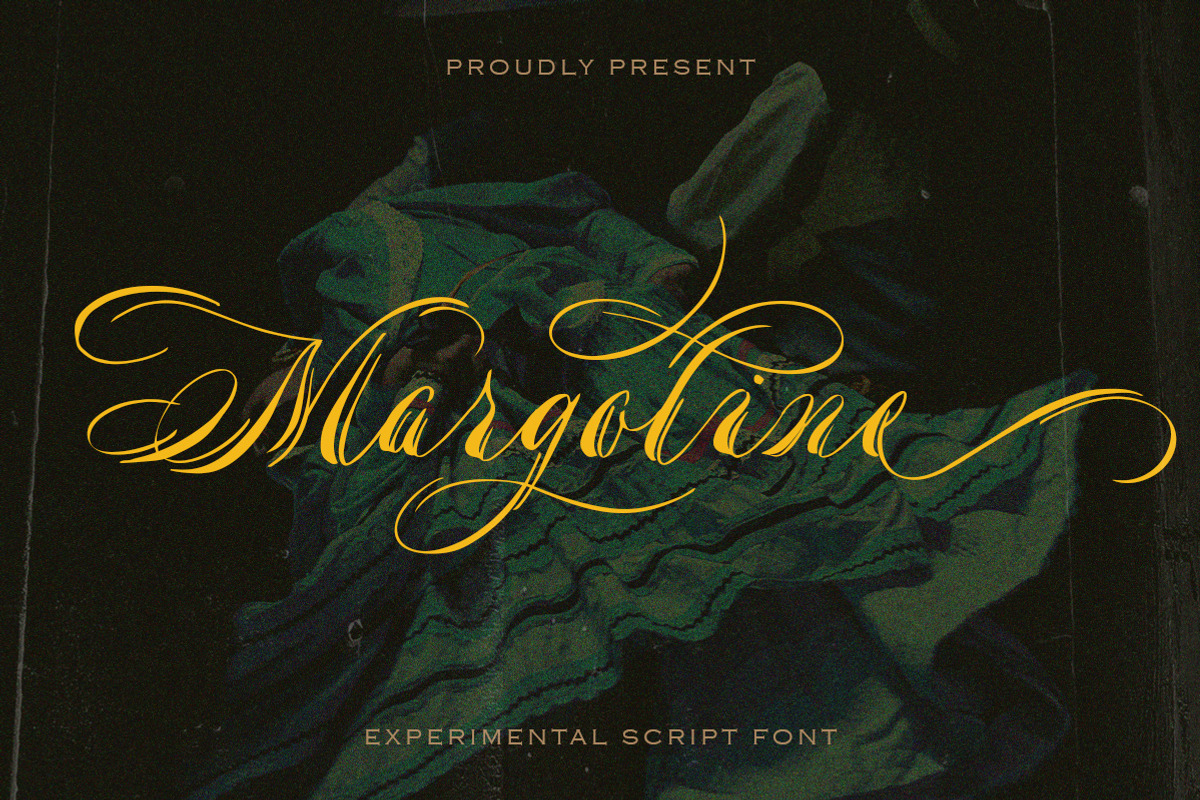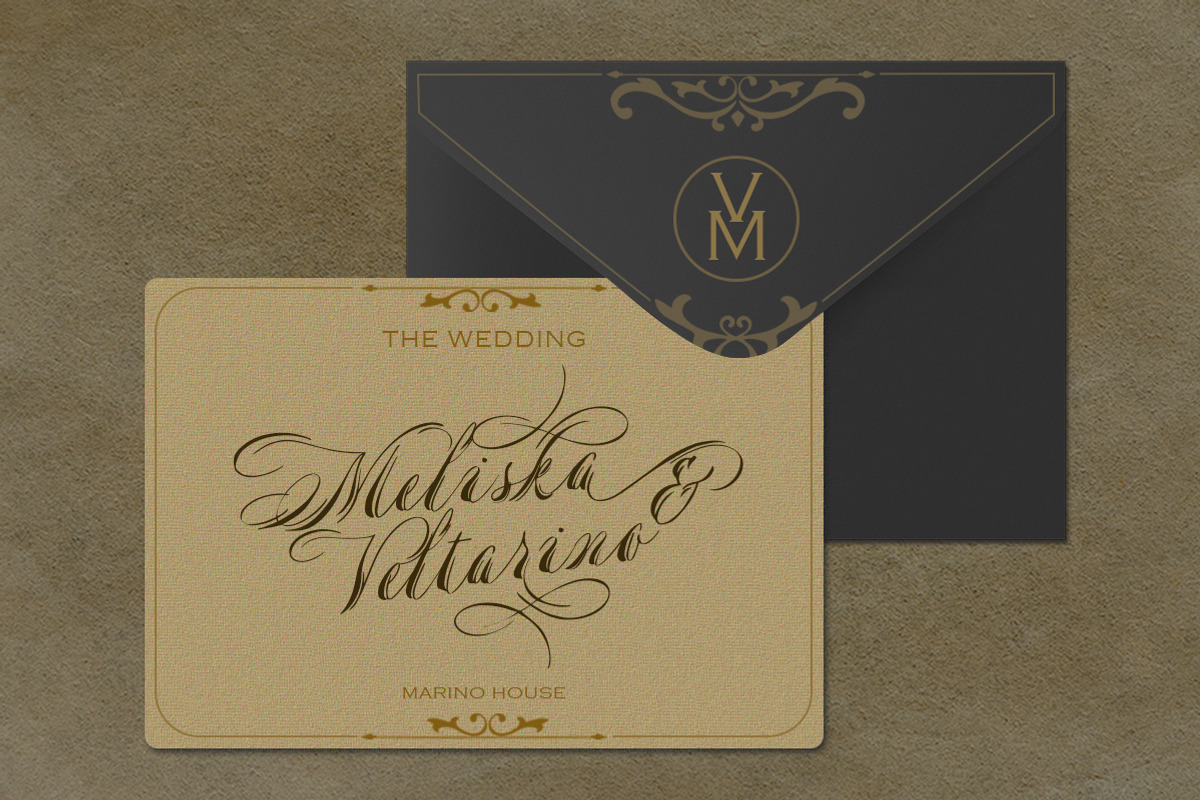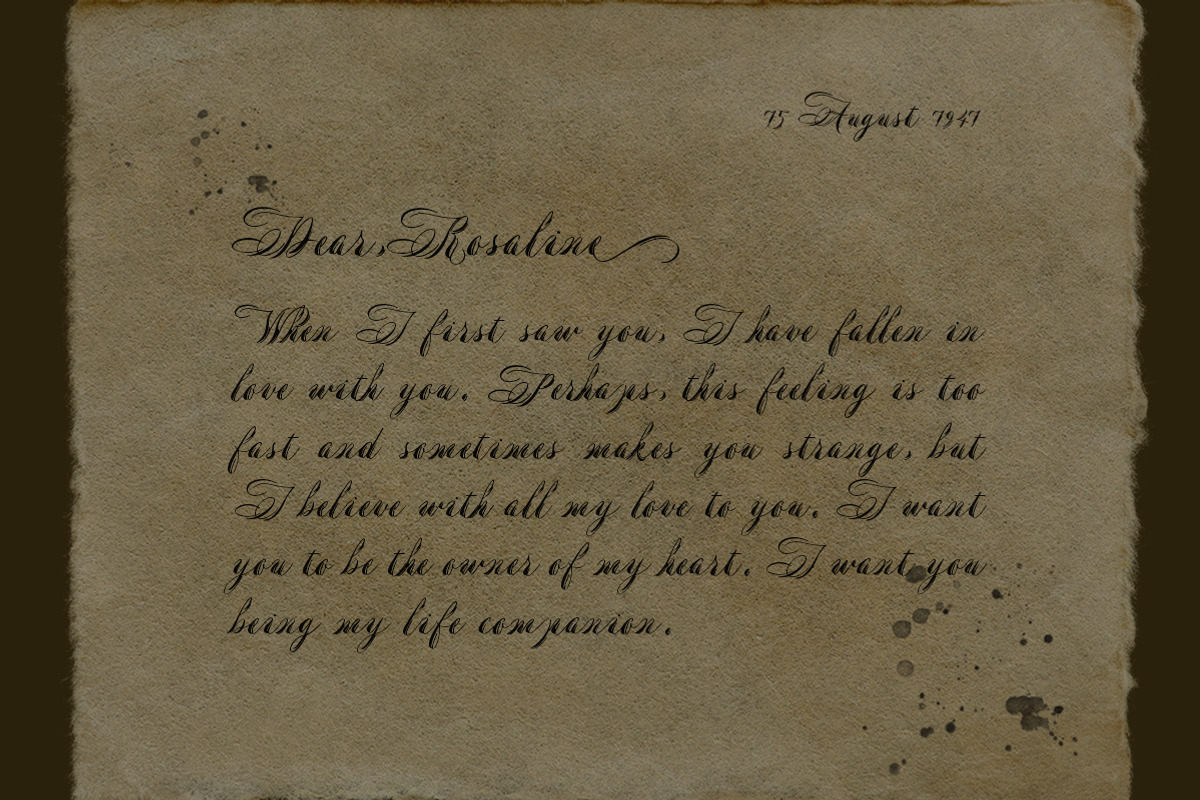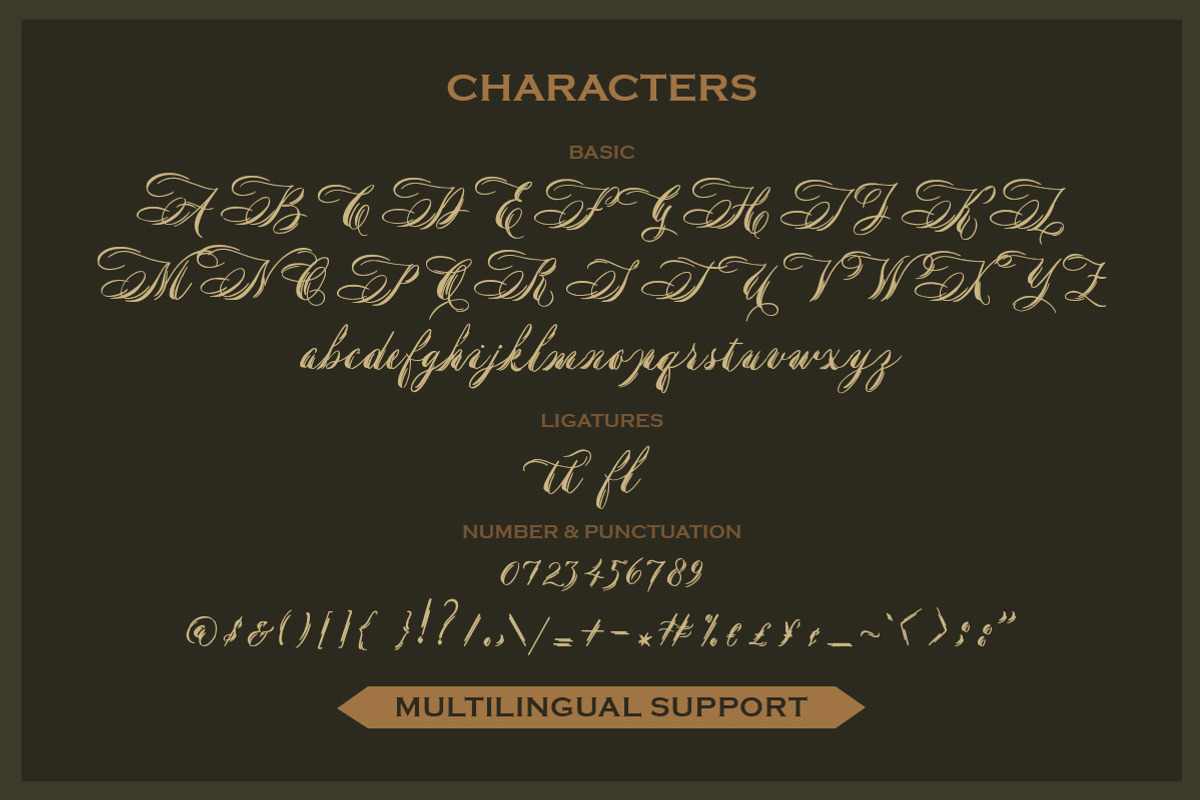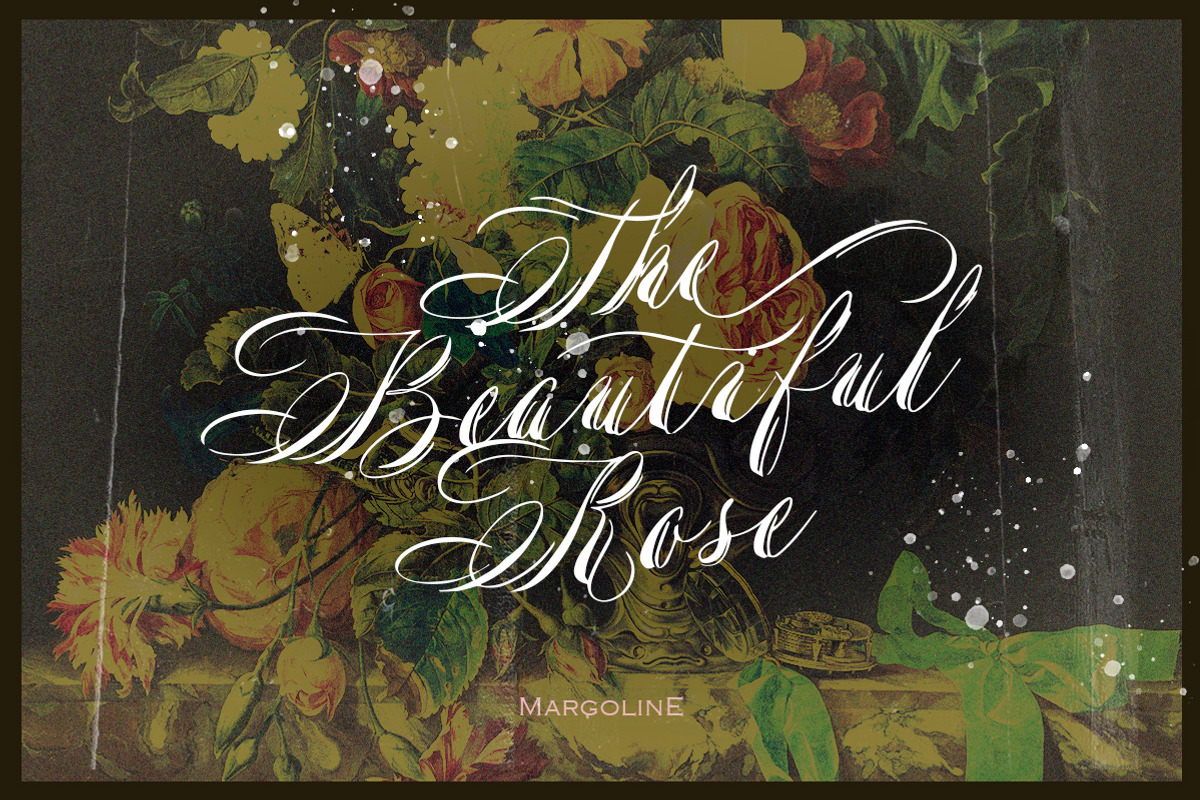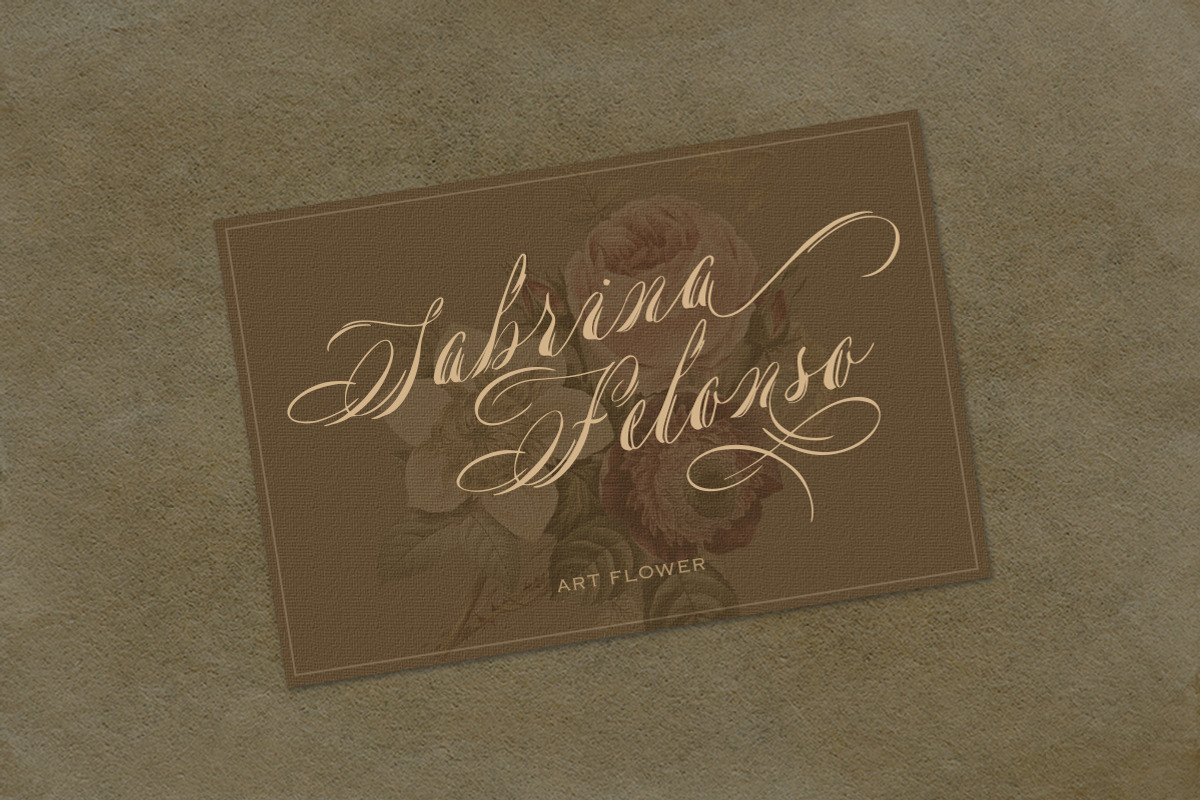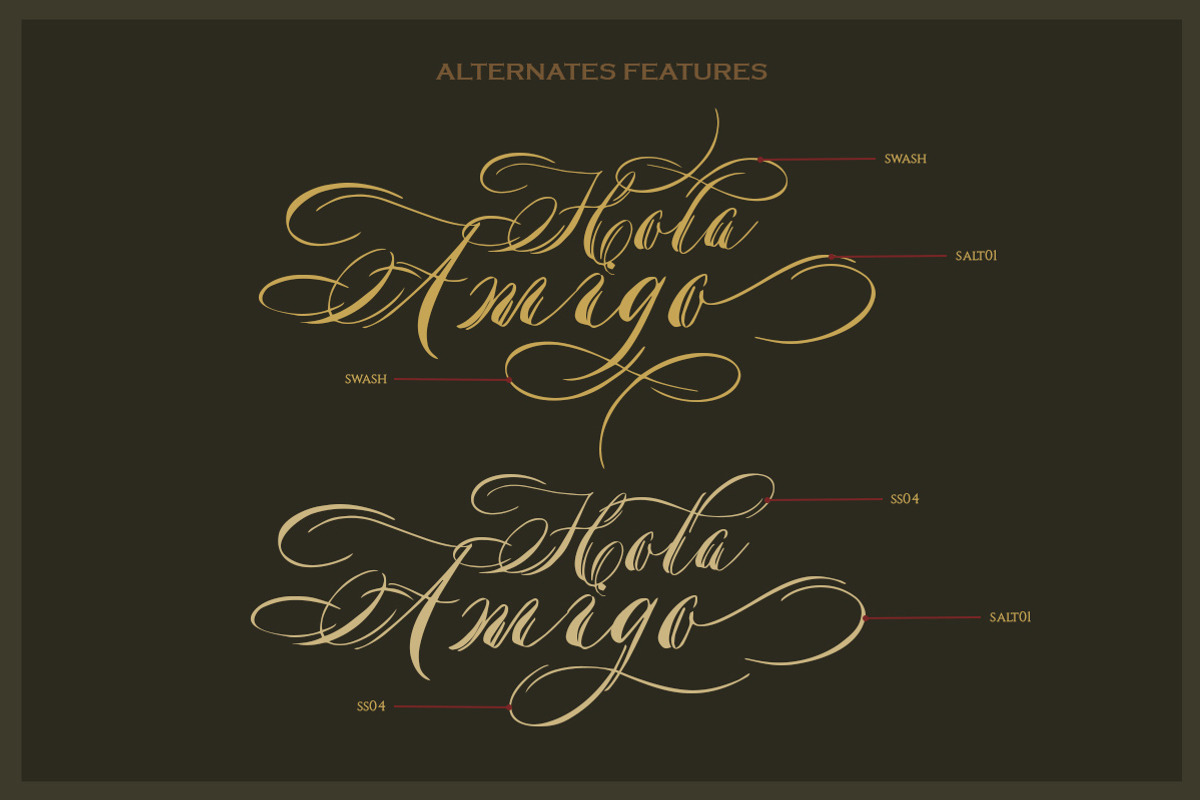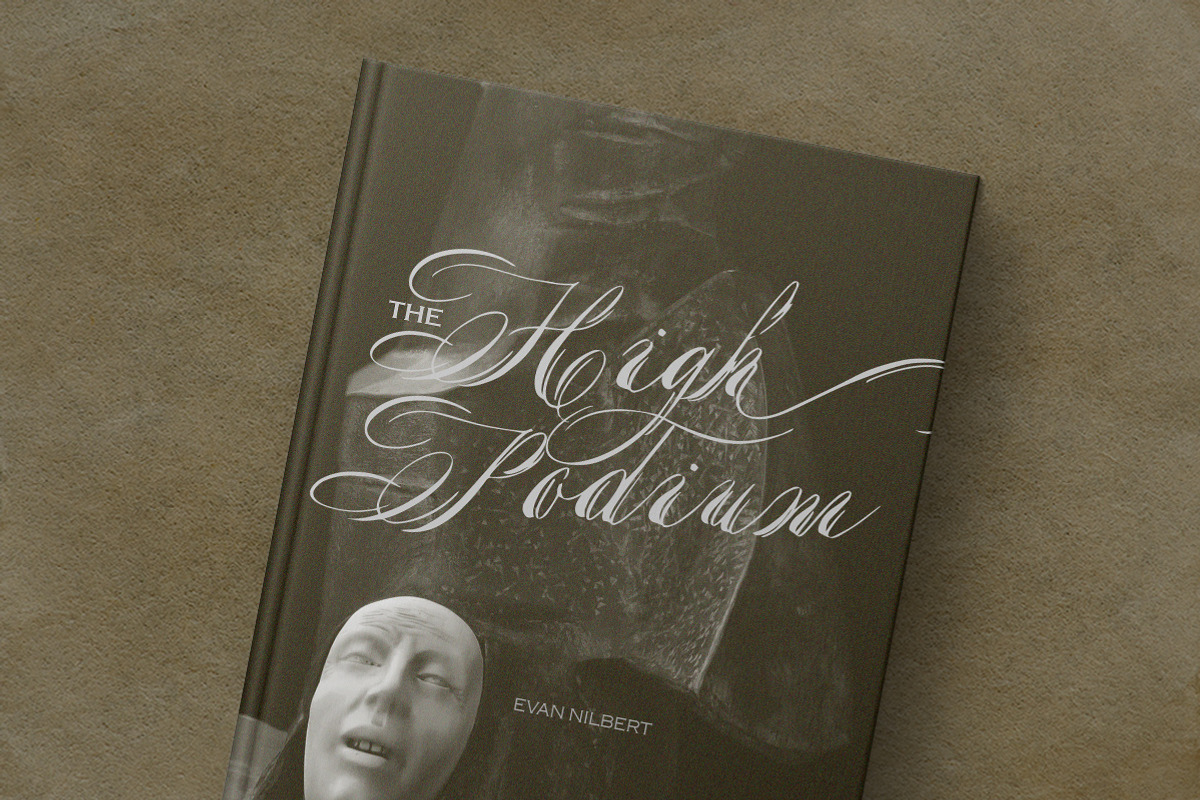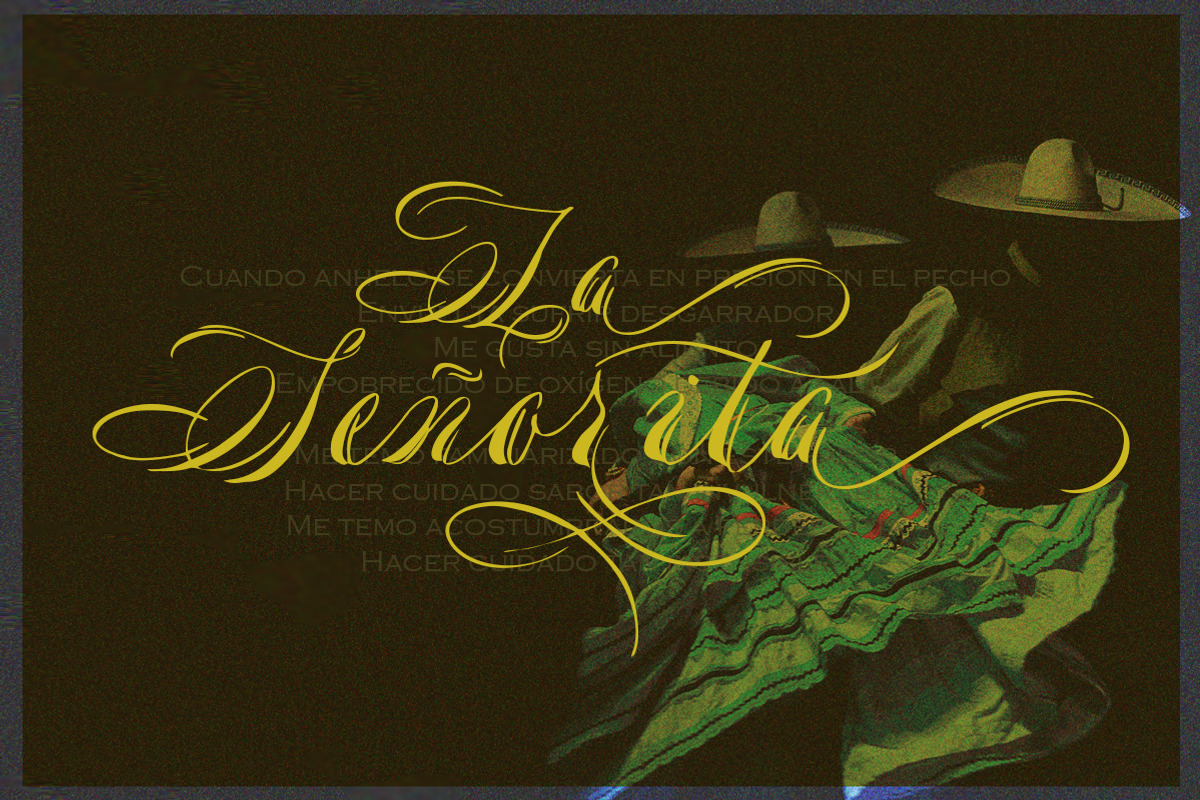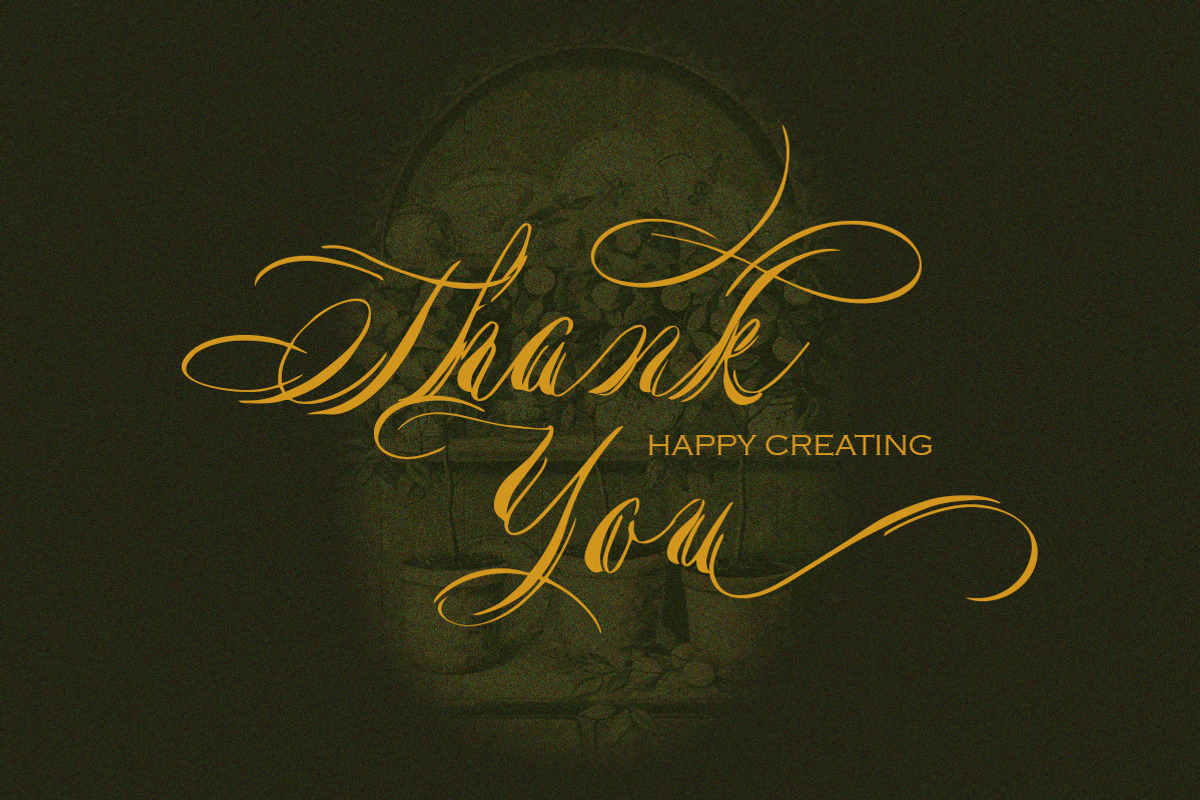
Margoline - script font
Introducing, Margoline script font. Margoline is a swash handwritten font that is perfect for branding, packaging, wedding invitation, card, etc.
- alternates and ligatures
- swash